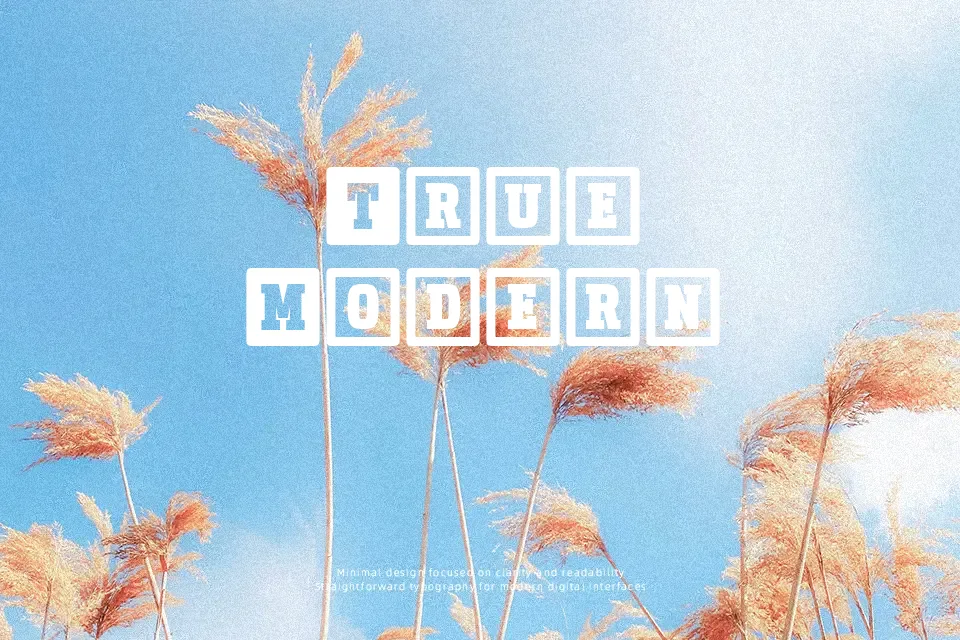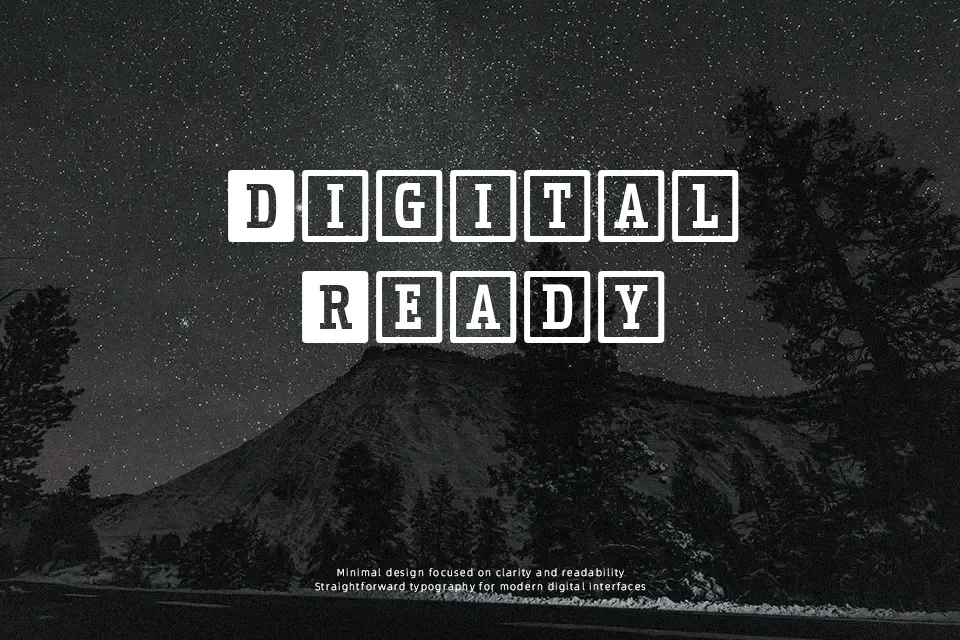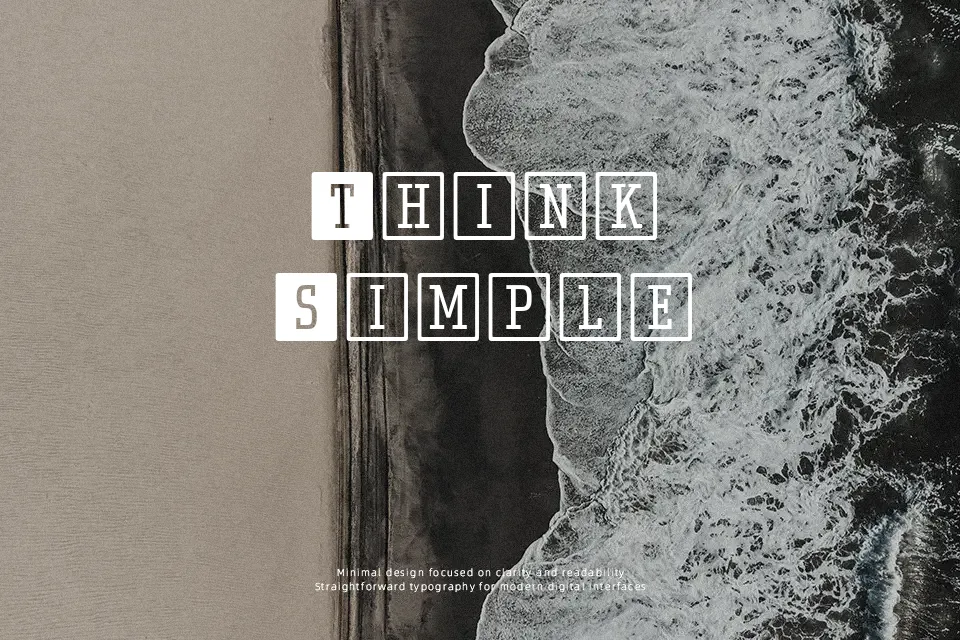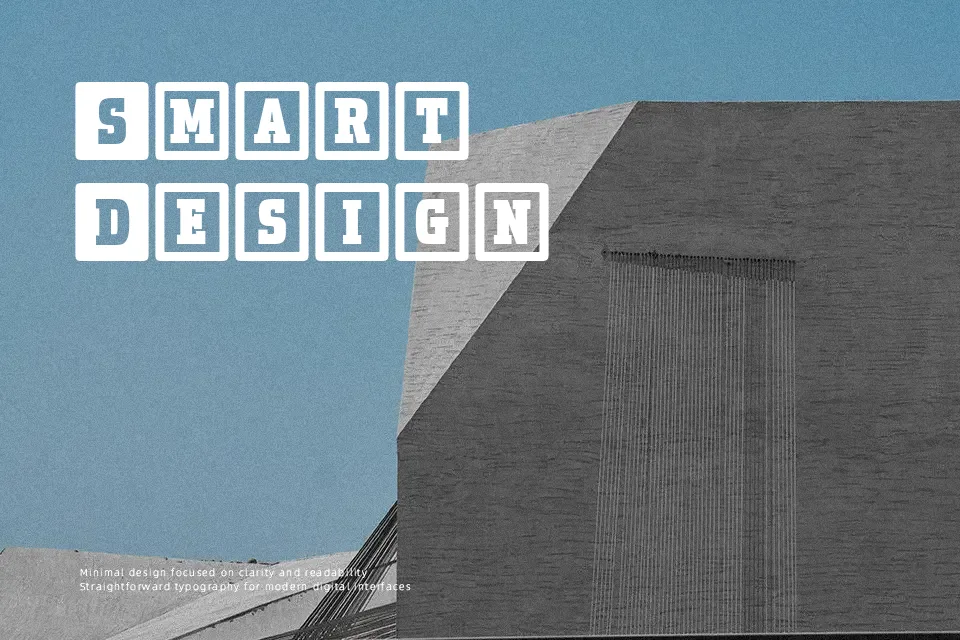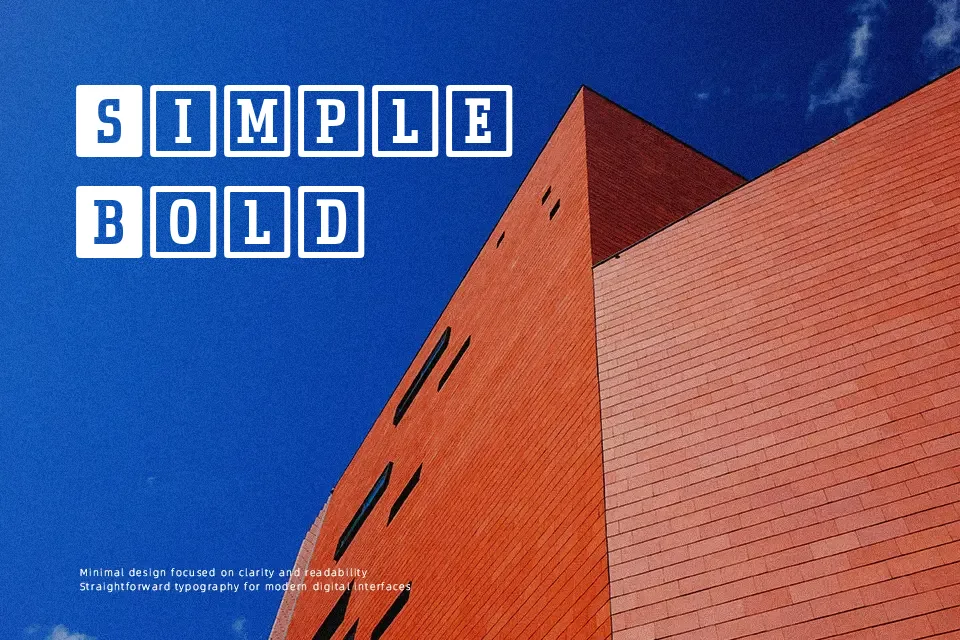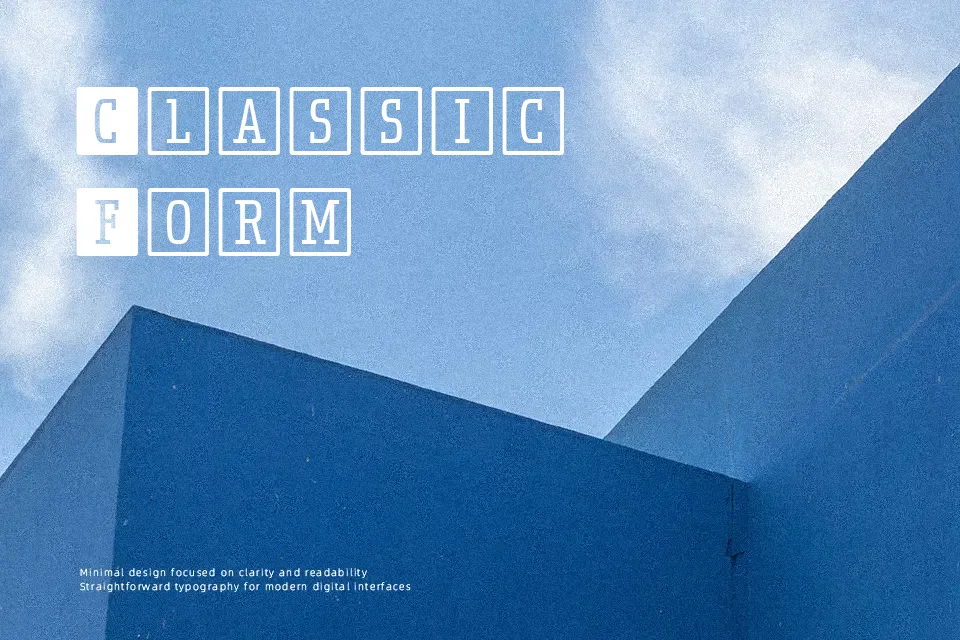
Uchrony Cube Font
Designed by deFharo
Uchrony Cube Font works as a compact display face built around condensed slab-serif letterforms set within visible square borders. Its strokes appear firm and relatively even, while the framed construction gives capitals, numerals, and punctuation a modular, grid-like rhythm. The tight proportions make it practical for short titles, labels, and poster lines where each character should read as a separate unit. Spacing remains orderly in larger settings, helping the boxed forms retain definition. At smaller sizes, however, the interior letterforms and surrounding frames can feel crowded, so the typeface is less comfortable for continuous reading.
Best For: poster headlines,album cover titles,product label graphics,structured logo treatments
Not Ideal For: long paragraph text,small interface labels,dense editorial layouts,legal documents